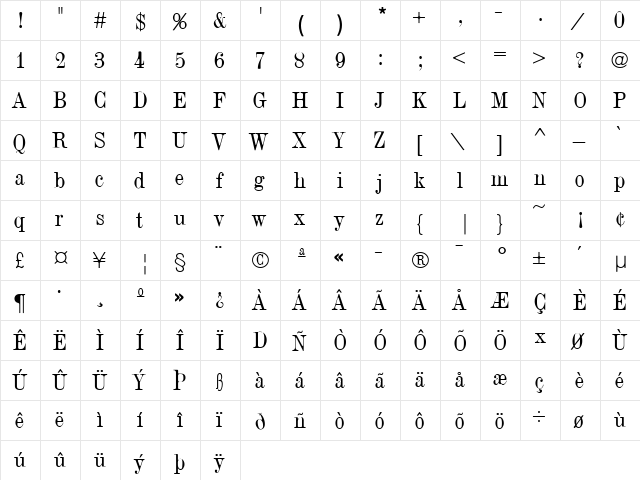
Pillowtalk Medium
| Foundry | Pillow Talk\ Designed By Adam Roe, Lunchbox Design |
Design Context for Pillowtalk Typeface
Pillowtalk is a composed and adaptable typeface that performs quietly and consistently across a wide range of design contexts.